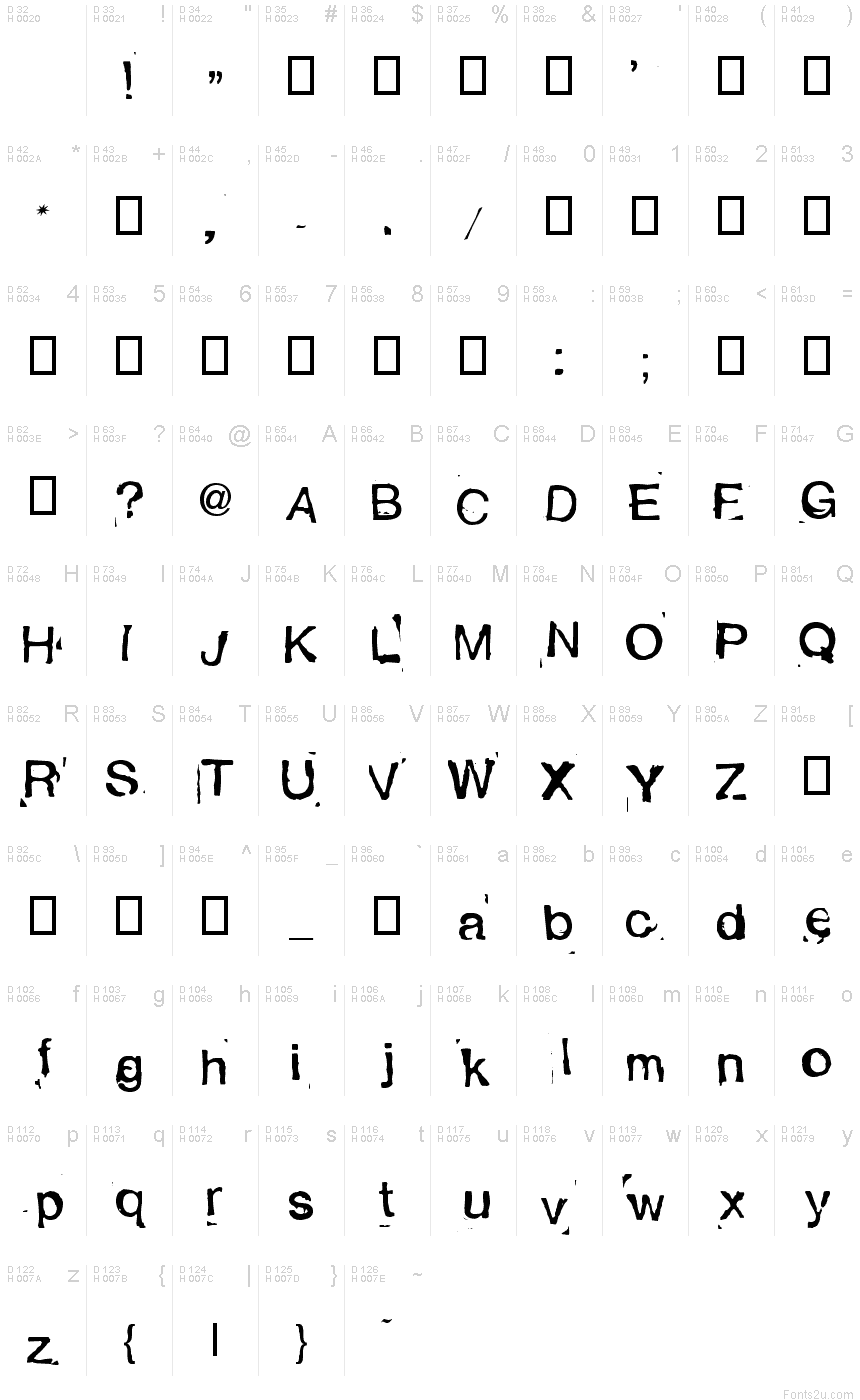
Alexandras Stempelkasten
Alexandras Stempelkasten font by Anke Art is a free distorted display typeface that looks like it’s been hammered onto paper with a worn-out rubber stamp. The letters wobble slightly on the line, edges crumble into inky specks, and spacing feels hand-done rather than measured, giving every word a raw, analog bite. It’s messy in a deliberate way, like photocopied flyers and underground zines passed from hand to hand.
Using Alexandras Stempelkasten, you get texture and attitude without needing extra graphics. This free font shines on gig posters, DIY zines, protest graphics, horror titles, escape room branding, and gritty album covers where you want noise and urgency. Set it big and bold, then pair it with a clean geometric sans for body copy to keep the chaos readable while the headline steals the spotlight.